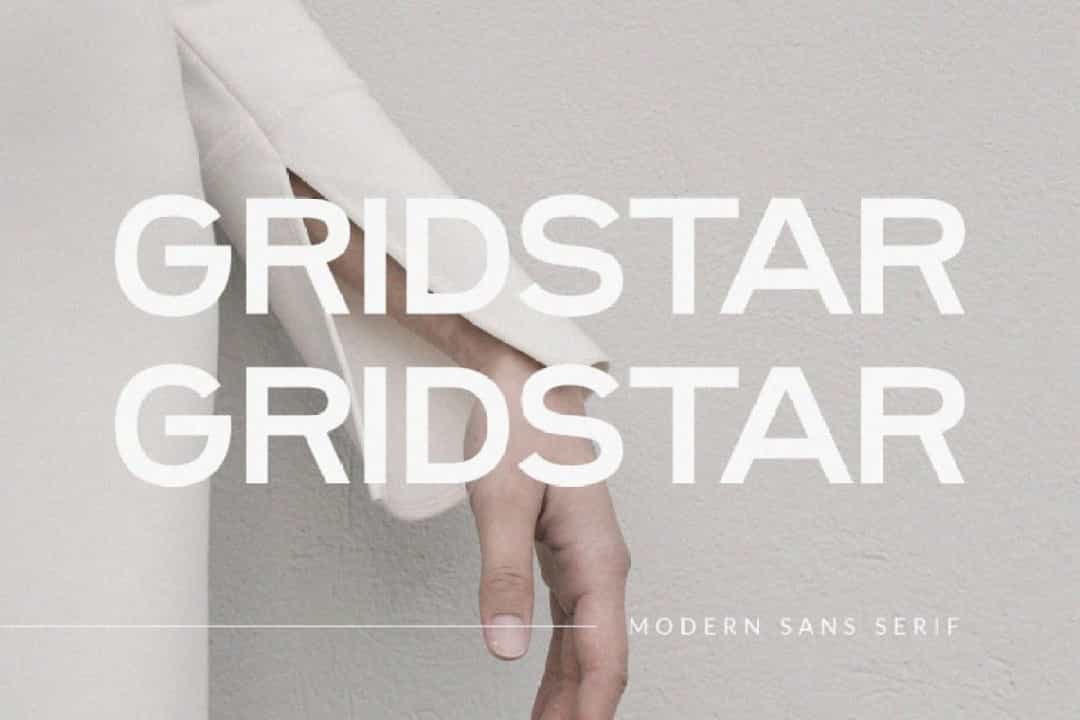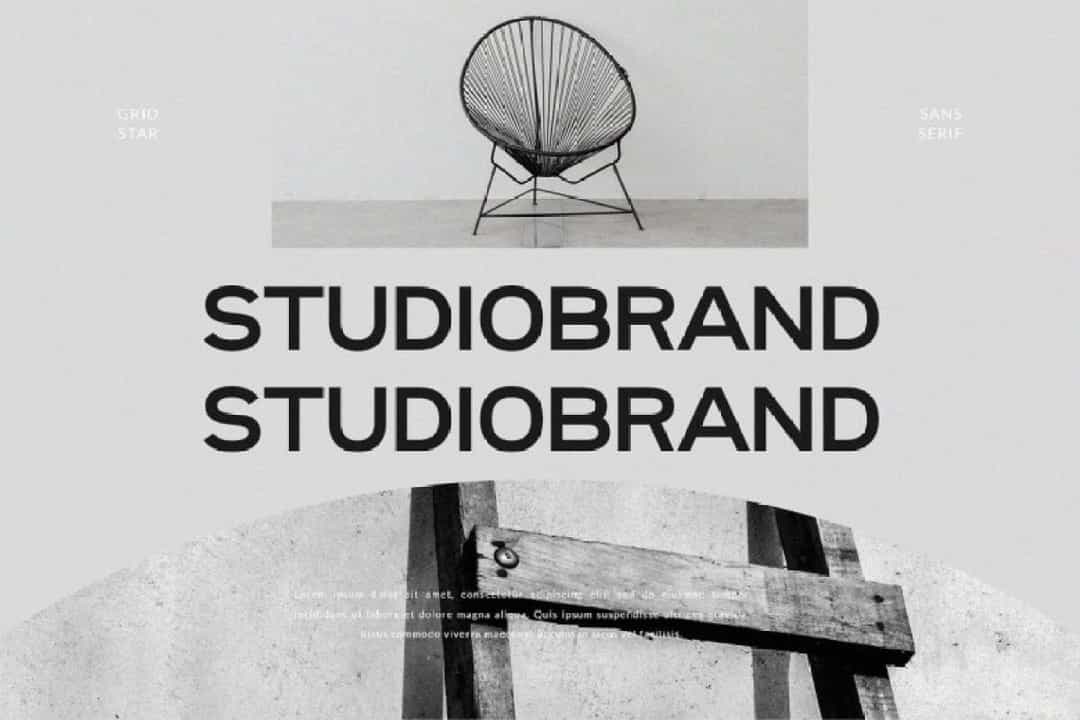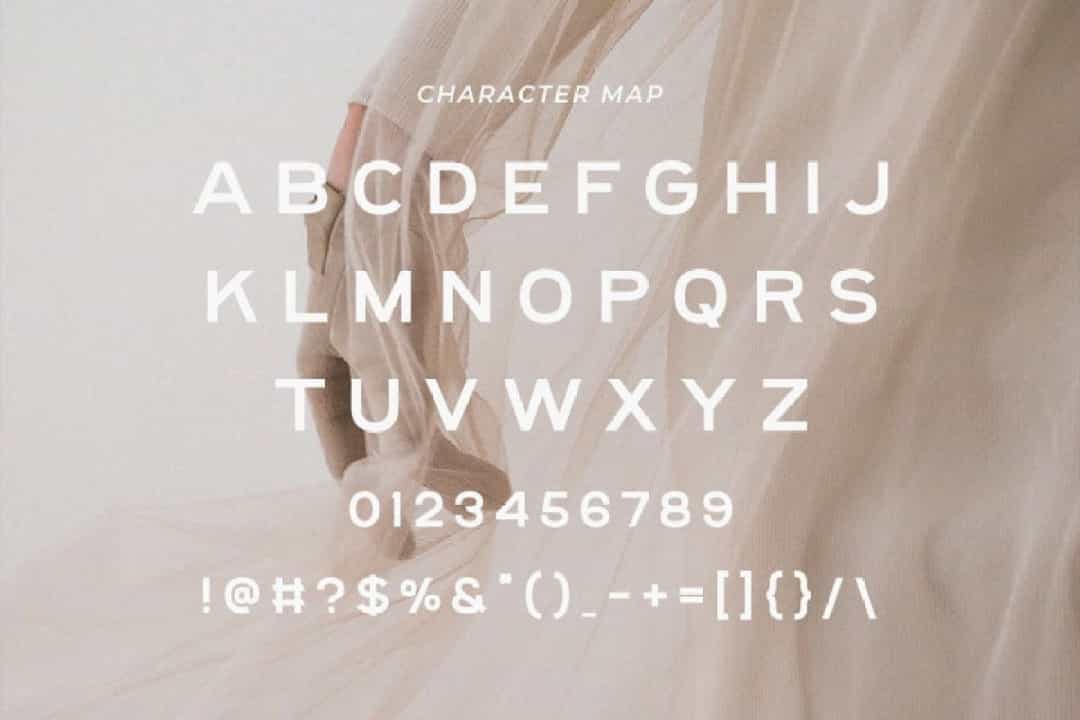
Gridstar is an elegant and modern sans-serif font which can be used as a display font in logos, headings, advertisements, publications, packaging and invitations. Known for its clean lines and smooth curves that add elegance to every project.